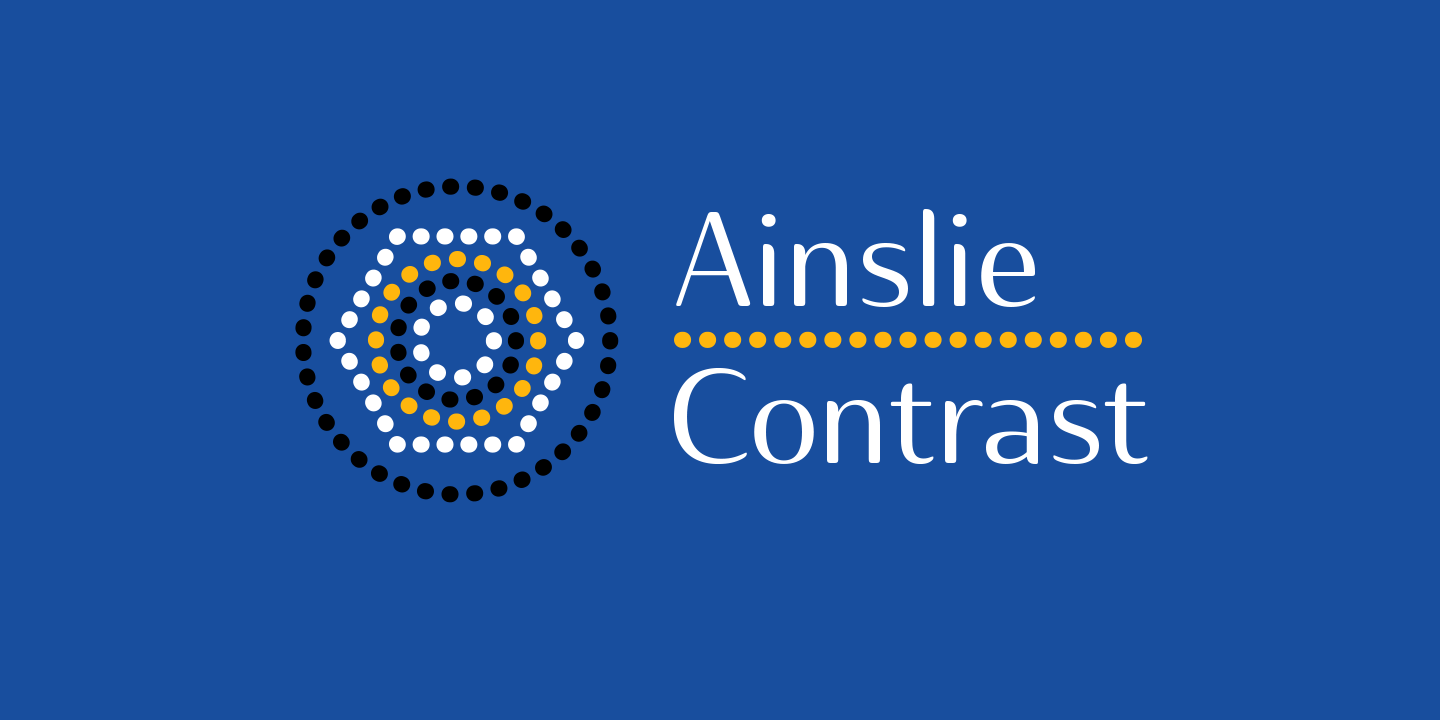
Ainslie Contrast Font is perfect for various applications including high-fashion magazine headers, luxury brand identities, sophisticated editorial layouts, premium product packaging, contemporary art gallery signage, upscale architectural presentations, elegant corporate communications, refined marketing materials, exclusive event invitations, and sophisticated web typography.
What makes Ainslie Contrast Font so exciting is its masterful balance between dramatic visual impact and refined elegance through striking contrast variations that command attention while maintaining sophisticated readability. This distinguished typeface features bold stroke contrasts with elegant proportions and contemporary details that create dynamic visual hierarchy and premium aesthetic appeal. The font's sophisticated character and high-contrast design make it ideal for brands that want to convey luxury, modernity, and editorial excellence to audiences who appreciate refined design, premium quality, and contemporary sophistication.
Ainslie Contrast Font family includes multiple weights and styles: Light, Regular, Medium, Bold, Black, High Contrast, Condensed, Extended, and elegantly crafted Italic variants. Each family member maintains the font's signature contrast while offering different levels of visual impact and stylistic flexibility for diverse luxury and editorial applications.
The Ainslie Contrast Font Free Download provides designers with access to a contrast-driven typeface that excels in luxury and editorial markets. Whether you're creating high-end brand identities, designing premium magazine layouts, or developing sophisticated digital experiences, this font delivers the striking aesthetic needed to establish premium positioning and editorial authority. Its high-contrast styling and contemporary essence make it particularly effective for fashion brands, luxury publishers, and sophisticated design agencies.
Typography specialists will appreciate the precise engineering and contrast mastery in Ainslie Contrast Font's construction. The font features meticulously crafted letterforms with dramatic stroke variations, optimized spacing for editorial applications, and carefully calibrated proportions that ensure exceptional readability while maintaining its striking character. From luxury fashion spreads to premium brand communications, this typeface maintains its sophistication and editorial appeal across all high-end contexts.
For luxury web designers, Ainslie Contrast Font provides outstanding performance in premium digital environments and editorial platforms. The font's technical specifications are optimized for high-resolution displays while preserving the dramatic, contrasting edges that define its sophisticated character. Its versatility makes it suitable for both static luxury content and dynamic editorial experiences.
Creative professionals working in fashion, luxury brands, editorial design, and premium communications will find Ainslie Contrast Font to be an essential tool for projects requiring sophisticated visual hierarchy. The font's ability to convey luxury, modernity, and editorial excellence makes it invaluable for brands targeting affluent demographics and design-conscious audiences.
Design agencies specializing in luxury and editorial brands appreciate Ainslie Contrast Font's versatility in creating memorable premium identities.